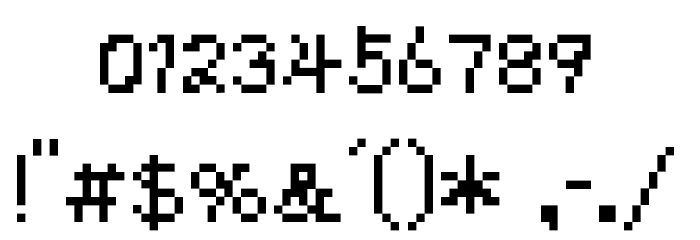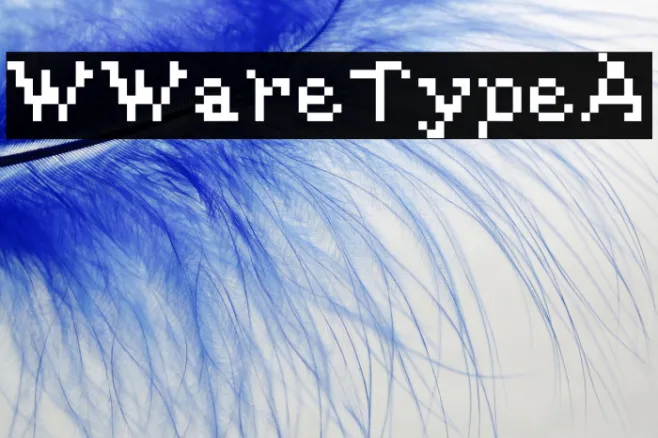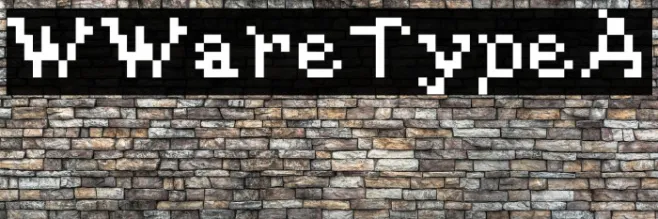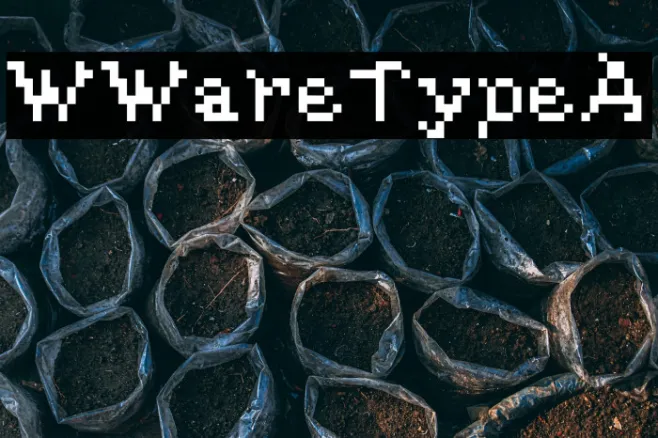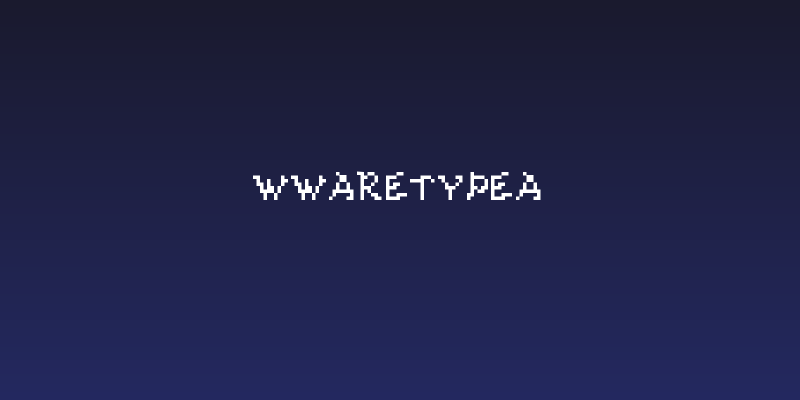
WWareTypeA Font
This font features a pixelated, retro style reminiscent of early computer graphics and video games. Each character is composed of blocky, square pixels, giving it a distinctly digital and nostalgic appearance. The uppercase and lowercase letters maintain a consistent height, with the uppercase being slightly taller. The numerals and special characters follow the same pixelated design, ensuring uniformity across the set. This style evokes a sense of nostalgia and is ideal for projects aiming to capture a vintage digital aesthetic.
A pixelated, retro-style font with a nostalgic digital appearance.
- Proposed Projects: Ideal for video game design, retro-themed posters, digital art projects, and any creative work that seeks to evoke a sense of nostalgia for early digital graphics.
- Overall Style: Vintage
- Use Case: Logos, Headlines, Digital Art